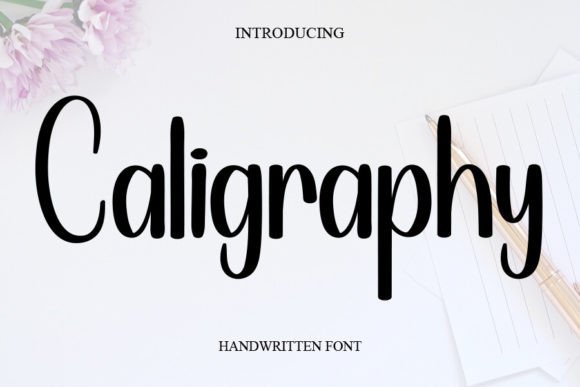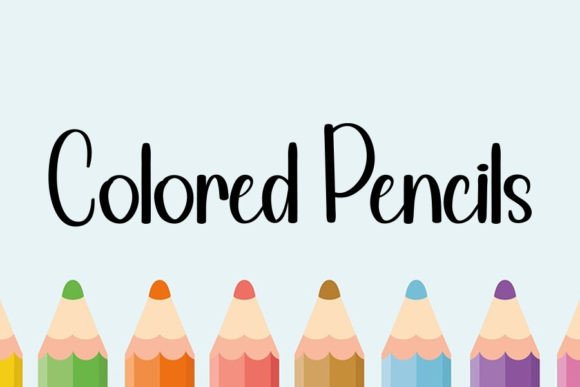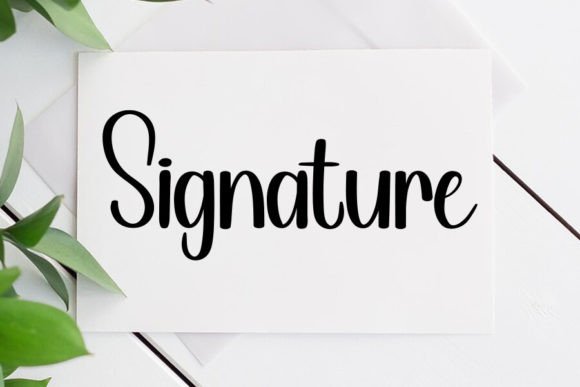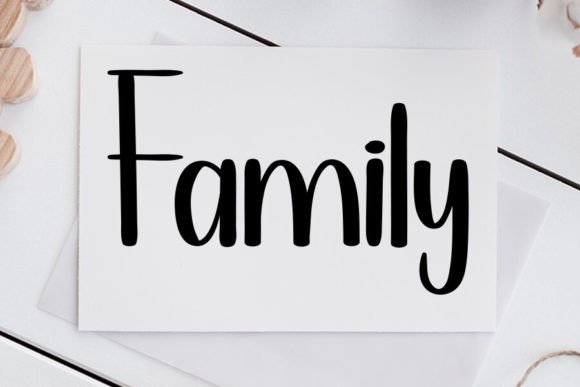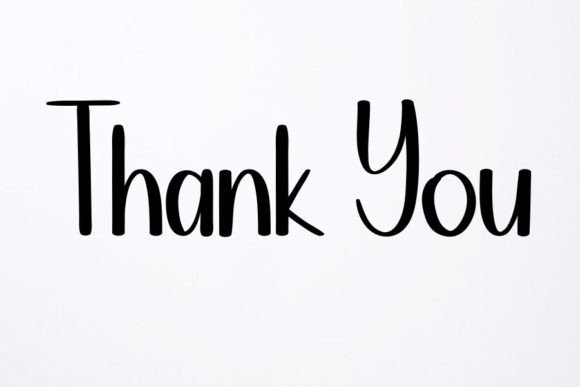
Elevate Your Designs with the Timeless Allure of Caligraphy Font
Do you ever find yourself lost in the creative process, searching for that perfect font to bring your vision to life? For me, it’s the moment when the words start flowing, and the design begins to take shape. That’s when I know I’ve found the perfect match – and that’s exactly what happens when you work with Caligraphy Font. This modern and charming handwritten font exudes elegance and personality, making it perfect for upscale invitations, personal branding, and chic editorial designs.
As a designer, you understand the value of a well-chosen font in elevating your projects. Caligraphy Font is more than just a font – it’s an experience. Its graceful, flowing strokes and sophisticated character bring warmth and refinement to any design, making it a valuable addition to any designer’s toolkit.
Key Features of Caligraphy Font
- Unique Characteristics: Caligraphy Font features a distinctive calligraphic style with elegant flourishes and subtle texture, adding a touch of sophistication to any design.
- Kerning and Ligatures: Caligraphy Font includes advanced kerning and ligature features, ensuring that text flows smoothly and naturally, even in complex layouts.
- OpenType Features: The font includes a range of OpenType features, including swashes, alternates, and stylistic sets, allowing designers to add an extra layer of creativity and flair to their work.
Caligraphy Font Review
Overall, I’d say the Caligraphy Font is a decent option for those looking for a elegant, handwritten feel in their designs. ✨ Here are some of the things that work well:
- Beautiful, flowing lines that evoke a sense of luxury and sophistication.
- Wide range of characters and glyphs, including international characters and symbols.
- Supports various font sizes and styles, making it easy to customize for different applications.
- Some characters may be difficult to read at small font sizes, due to their intricate details.
- The font may not be as versatile as some other options, and may not work well in all design contexts.
- There may be some inconsistencies in the font’s spacing and alignment, which can be noticeable in certain situations.
Overall, I’d say the Caligraphy Font is a good choice for designers who want to add a touch of elegance and sophistication to their work. However, it may not be the best option for those who need a highly versatile or readable font.
Tips for Getting the Most Out of Calligraphy Font
Experiment with different font sizes, colors, and styles to create a unique look. Use calligraphy font to add a touch of elegance to invitations, wedding stationery, and other special occasions. You can also use it to create a playful and whimsical atmosphere in children’s birthday invitations and party decorations.
Calligraphy font is commonly used in:
- Birthdays and party invitations
- Announcements and certificates
- Wedding programs and menus
- Special occasion cards and gift tags
Alternatives to “Caligraphy Font” for Designers
Lobster Font is a fun, casual script font that is perfect for headings and titles. It has a unique, handwritten feel that works well for creative and playful designs. Unlike Caligraphy Font, Lobster Font is more modern and has a softer, more rounded look.
Great Vibes Font is a beautiful, elegant script font that is ideal for luxury and high-end designs. It has a classic, sophisticated feel that works well for invitations, wedding stationery, and other special occasions. While Caligraphy Font is more playful, Great Vibes Font is more refined and polished.